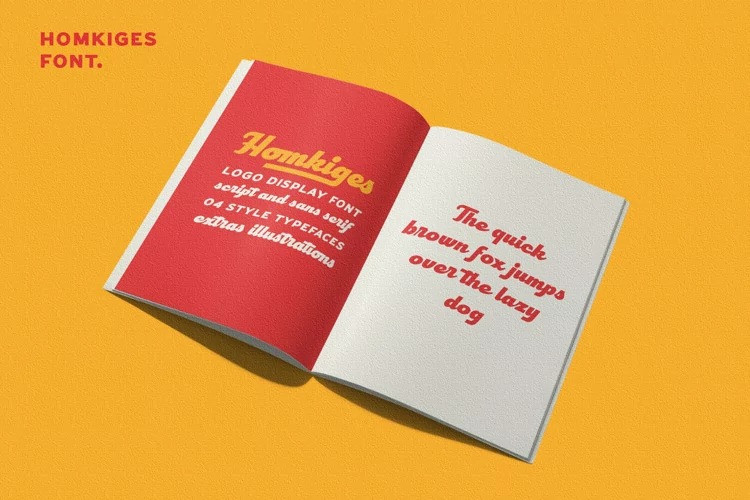
Homkiges Caps Font
Homkiges Font is a beautiful font collection including sans serif, script, and dingbats in different styles to suit all design needs. Use this stunning font collection to create outstanding logo designs, posters, logos, labels, product packaging, t-shirts, or more custom designs.